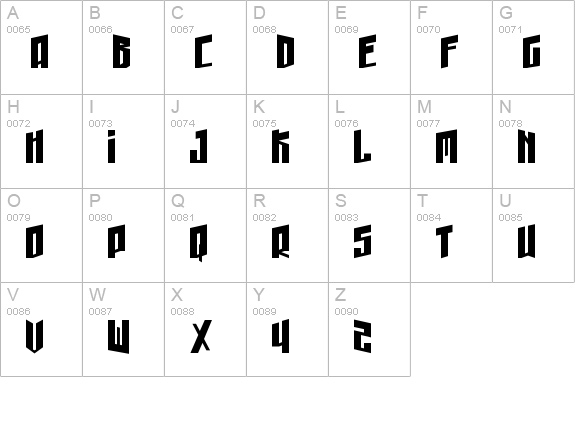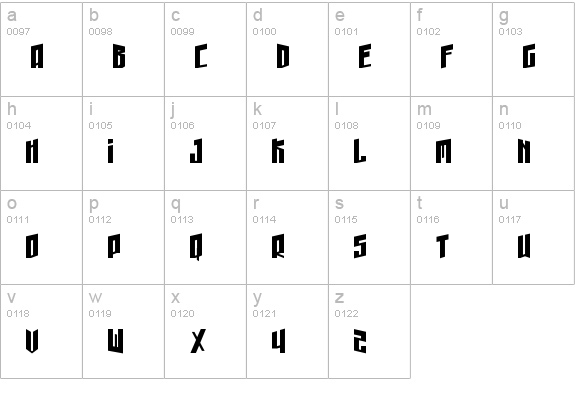
Gunhead Chick Font Details
Gunhead Chick font is a bold and playful typeface that exudes a sense of energy and creativity. With its unique design and eye-catching charm, this font is perfect for adding a touch of fun to any project. Whether you're working on a poster, logo, or social media graphic, Gunhead Chick font will make your text stand out and capture attention. And the best part? Gunhead Chick font is available for free download at FontsMarket.com! Get your hands on this fantastic font today and start creating stunning designs that will leave a lasting impression. Don't miss out on the opportunity to add Gunhead Chick font to your collection of creative resources. Download it now and let your imagination run wild with endless design possibilities!